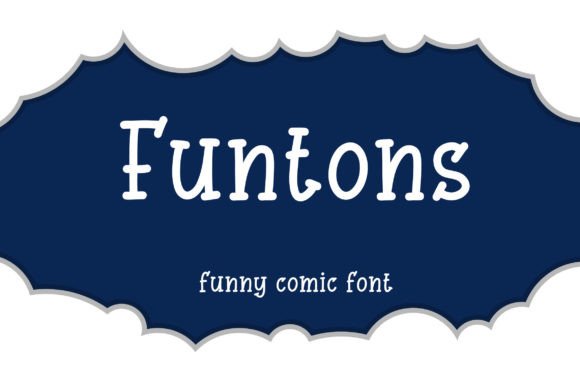
Funtons Font
**Introducing Funtons: The Font That Will Spark Your Creativity**
Step into the whimsical world of Funtons, where serifs dance with delight, creating a symphony of visual appeal. This captivating serif font, crafted by the ingenious minds at Mightyfire, is a vibrant addition to any designer's toolkit.
Funtons possesses an inherent versatility, effortlessly adapting to a myriad of creations. Its charming character shines upon invitations, branding materials, and website designs, transforming ordinary words into extraordinary expressions. Embrace the playful spirit of Funtons and witness how it elevates your designs.
Let your imagination soar as you explore the endless possibilities of Funtons. Its serifs, imbued with a touch of whimsy, add a playful flair to headlines, logos, and posters. Whether you're crafting a whimsical invitation or designing a captivating brand identity, Funtons will lend its unique charm to your vision.
Immerse yourself in the delightful embrace of Funtons, a font that brings joy to every project. Its playful nature will ignite your creativity and captivate your audience.
**Funtons: Where Fun Meets Functionality**
As a font specifically designed for display purposes, Funtons excels in commanding attention. Its large size and bold presence make it an ideal choice for headlines, posters, and other attention-grabbing elements. Whether you're creating a vibrant website banner or a captivating social media post, Funtons will ensure your message leaves a lasting impression.
Despite its playful nature, Funtons retains a level of professionalism, making it suitable for a diverse range of projects. Its well-crafted serifs lend an air of sophistication, ensuring your designs exude both creativity and credibility.
Experience the transformative power of Funtons, a font that will add a touch of delight to your designs and captivate your audience with its playful spirit. Let your imagination run wild and embrace the endless possibilities that Funtons offers.